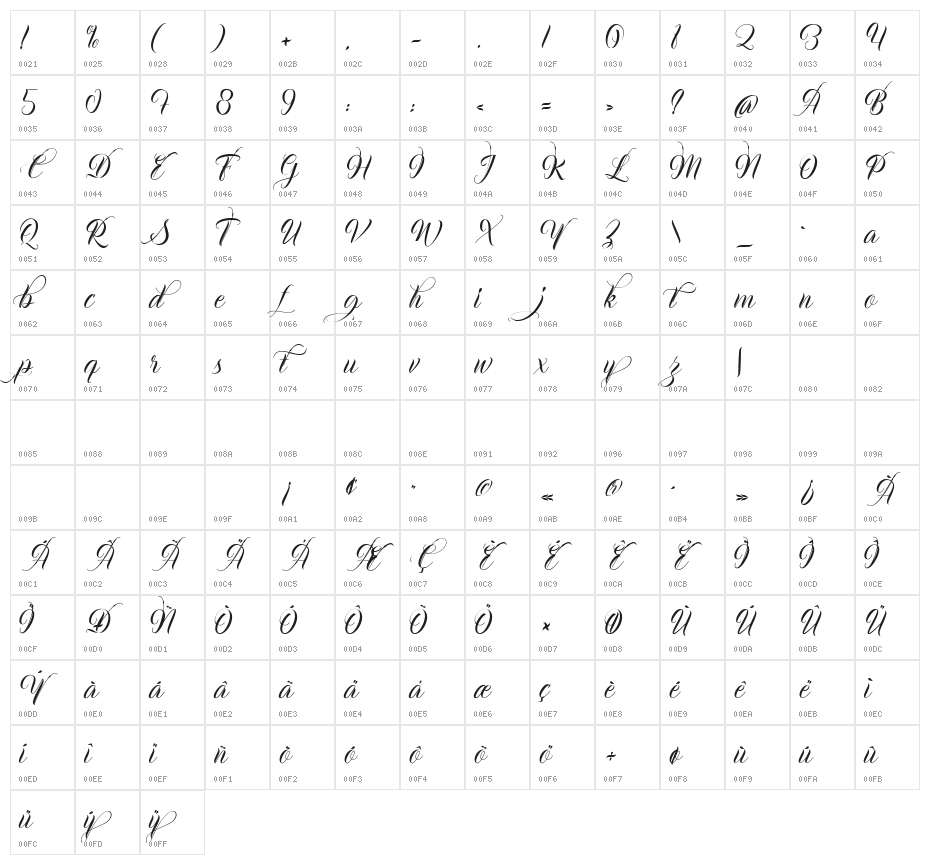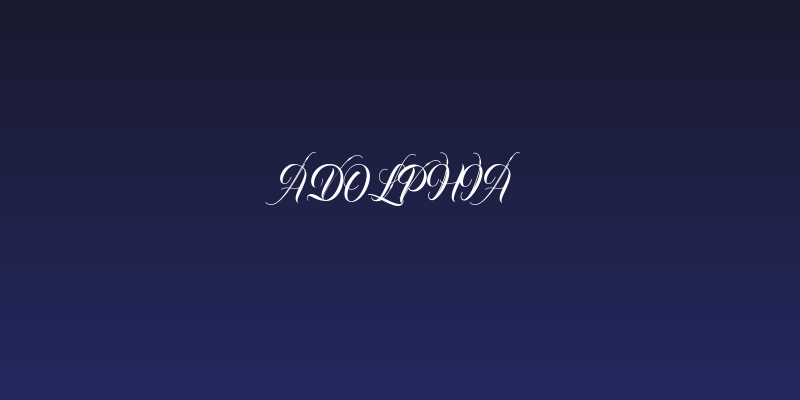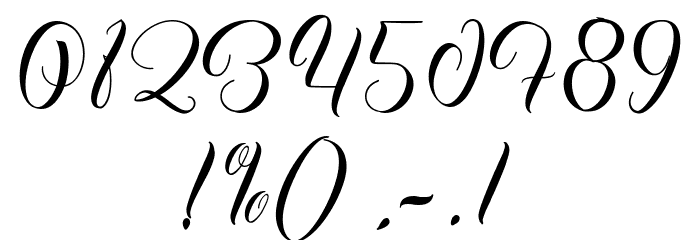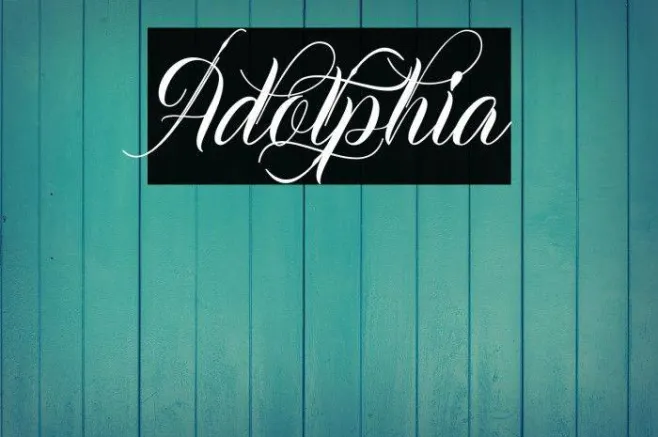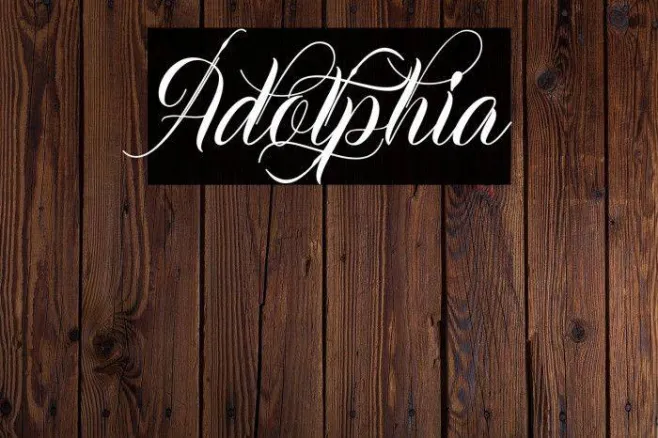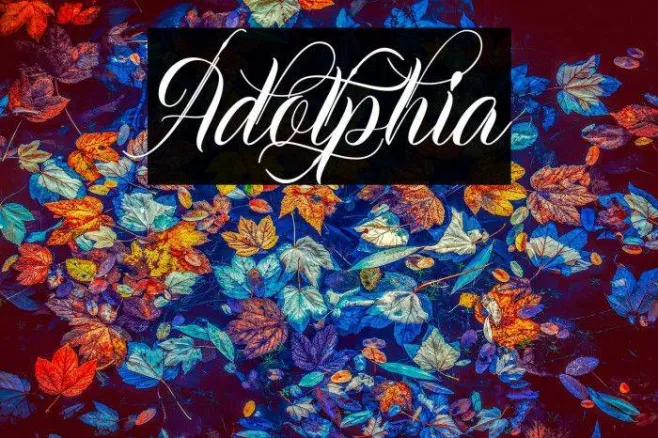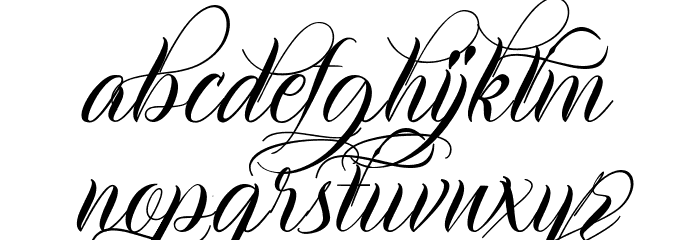
Adolphia Font
Adolphia Description
This elegant script font features intricate, flowing lines and elaborate flourishes, creating a sense of sophistication and grace. The uppercase letters are adorned with dramatic swashes, while the lowercase letters maintain a consistent, cursive style. The numerals and special characters are designed with the same attention to detail, ensuring a cohesive look across all elements. The font's high contrast between thick and thin strokes adds to its decorative appeal, making it ideal for formal invitations, branding, and other projects where a touch of elegance is desired.
| Use Case | Logos, Invitations, Decorative Headlines |
| Proposed Projects | Ideal for wedding invitations, luxury branding, elegant logos, and decorative headlines. |